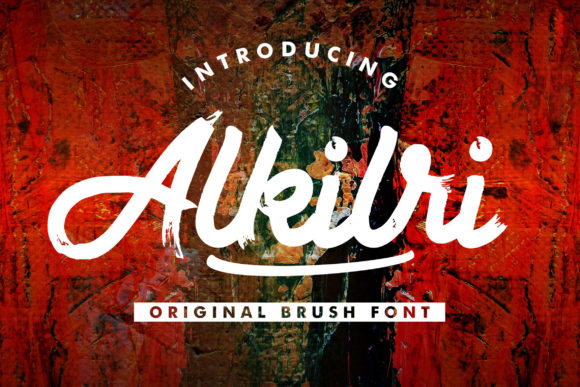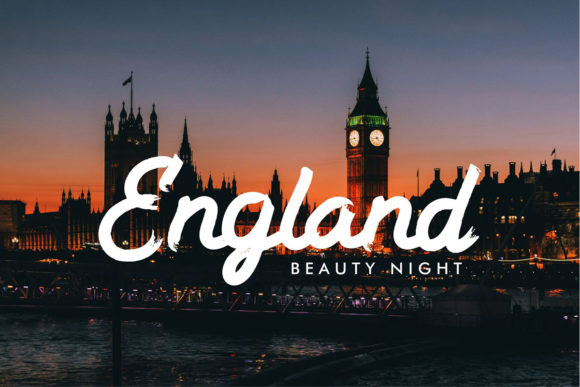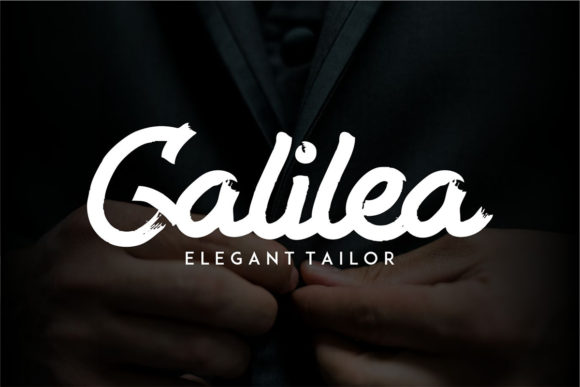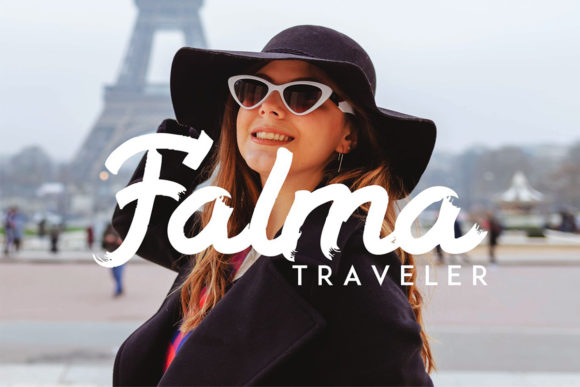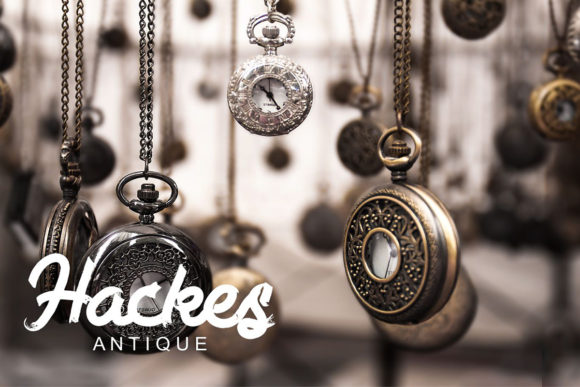
Alkilri Font
About Alkilri Font
Alkilri is a fun and bold handwritten font with a unique style. Get inspired by its contemporary charm, and turn any design project into a stand out!